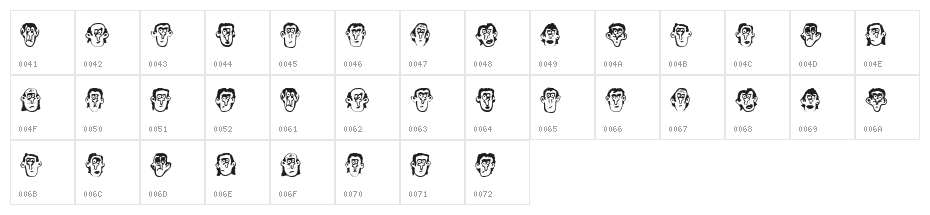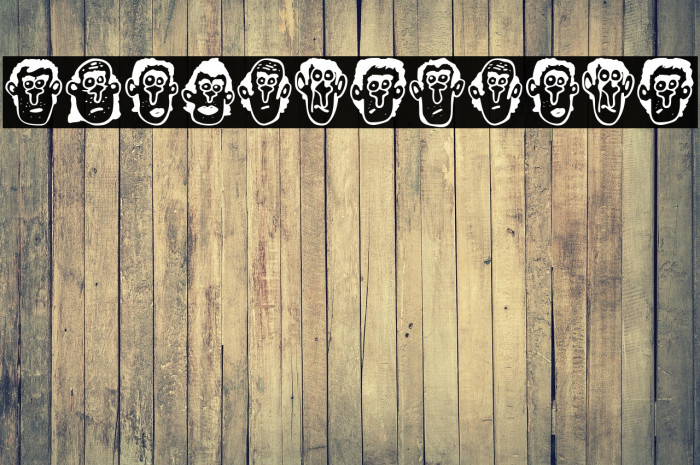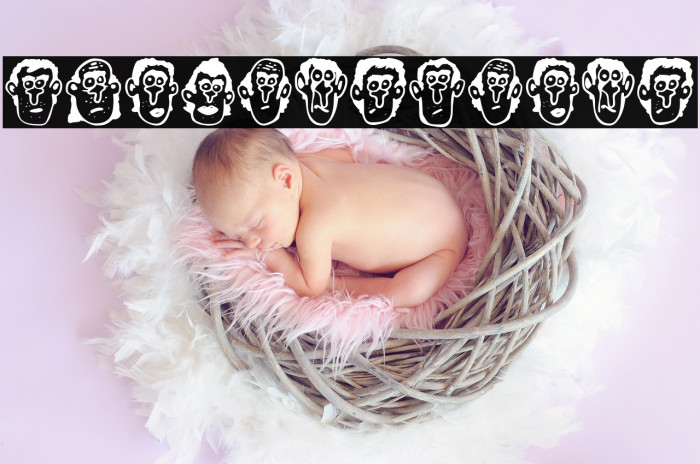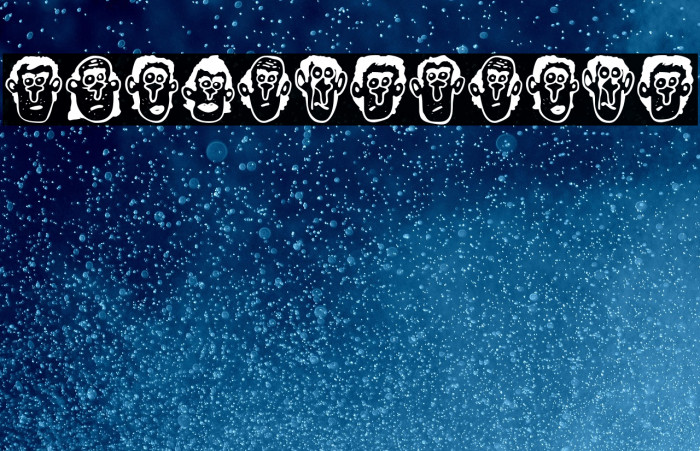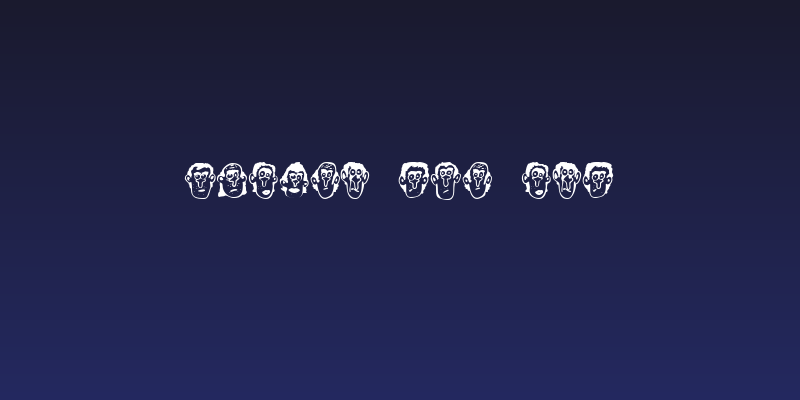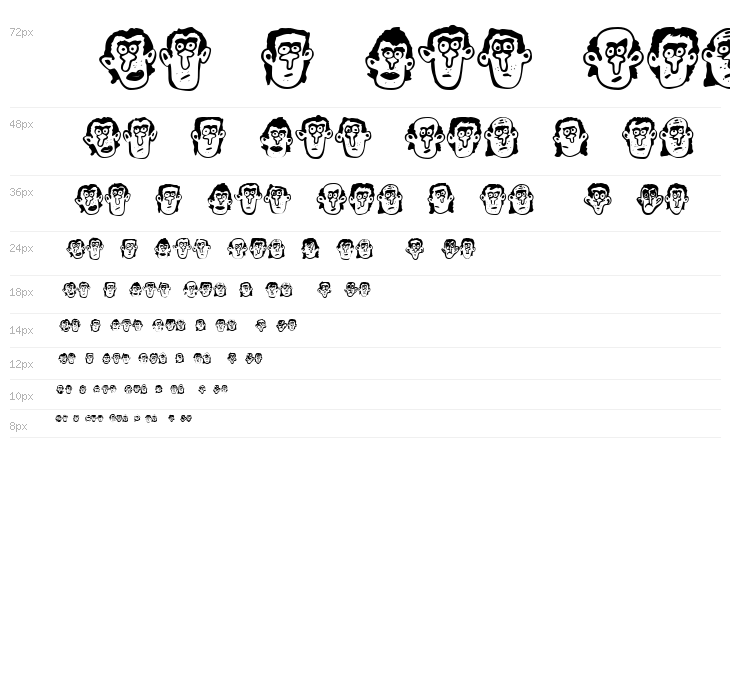
Foliga Regular Font
Foliga Regular Description
A highly decorative and whimsical font where each character is represented by a unique cartoonish face, featuring exaggerated facial features and playful expressions. The style is hand-drawn with bold outlines and varied details, giving each letter and symbol a distinct personality.
| Overall Style | Decorative, Whimsical, Playful |
| Use Case | Logos, Headlines, Posters, ChildrenΓ’β¬β’s materials |
| Proposed Projects | ChildrenΓ’β¬β’s books, comic titles, party invitations, posters, playful branding, novelty products. |